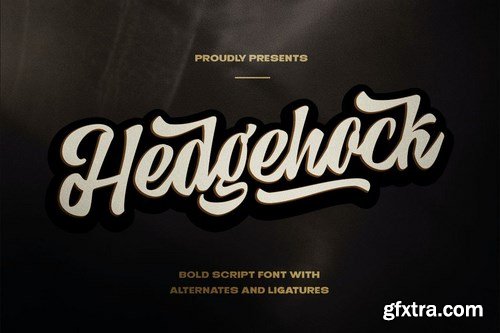
Hedgehock Script Inspired by Sign painting style and combination with Hand Lettering style. I'm made with personality touch every single curve. I hope this can make inspire you from your work. and a very bouncy baseline It has a perfectly paired complimentary marker font , and a super handy set of bonus Swash. Ideal for logos, handwritten quotes, product packaging, header, poster, merchandise, social media & greeting cards.